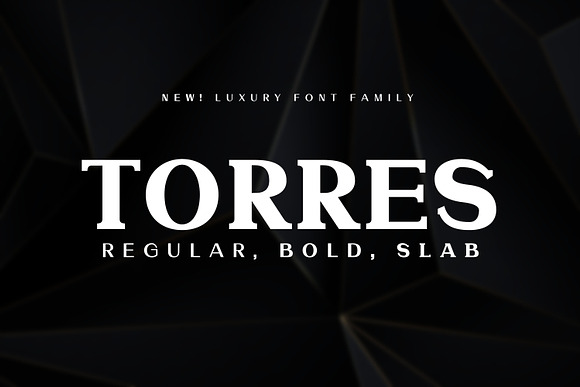
Torres Font Family
Torres Font Family is perfect for architectural firm branding, construction company communications, engineering presentation materials, structural design projects, tower development marketing, urban planning documents, solid corporate identity, professional building services, modern infrastructure campaigns, and distinguished construction industry branding.
Torres Font Family is exciting because it masterfully embodies the strength and architectural precision of towering structures, creating a typeface family that represents stability, engineering excellence, and the impressive verticality that defines monumental construction projects. This font brings structural sophistication and architectural authority to any project, making it ideal for organizations that want to convey strength, reliability, and the impressive scale of major building and infrastructure development. Its towering character and structural appeal create an atmosphere of engineering confidence that resonates with audiences who appreciate solid construction and architectural achievement.
Torres Font Family includes light, regular, medium, bold, and black weights, each available in roman and italic styles with architectural symbols and structural ornaments, providing designers with comprehensive tools for creating towering typography and architecturally impressive brand experiences.
This distinguished structural typeface combines architectural design principles with contemporary functionality, making Torres Font Family Free Download an outstanding choice for projects celebrating construction excellence and engineering achievement. The font's solidly crafted letterforms feature tower-inspired proportions and structural styling that reflect the precision and strength essential for major architectural projects and infrastructure development.
Whether you're designing construction industry branding, architectural presentation materials, or engineering firm communications, Torres Font Family delivers unmatched structural authenticity and architectural appeal. The font excels in both detailed technical applications and large-scale construction environments where engineering expertise and structural reliability create impressive building achievements.
Construction professionals choose Torres Font Family for its ability to instantly communicate structural expertise and architectural authority while maintaining excellent readability across complex technical applications. The font's towering character makes it particularly effective for construction companies, architectural firms, and infrastructure development organizations.
Each character reflects the impressive strength of towering structures, featuring solid construction and architectural proportions that create typography as reliable and impressive as skyscrapers, bridges, and the most monumental achievements in construction and engineering excellence.